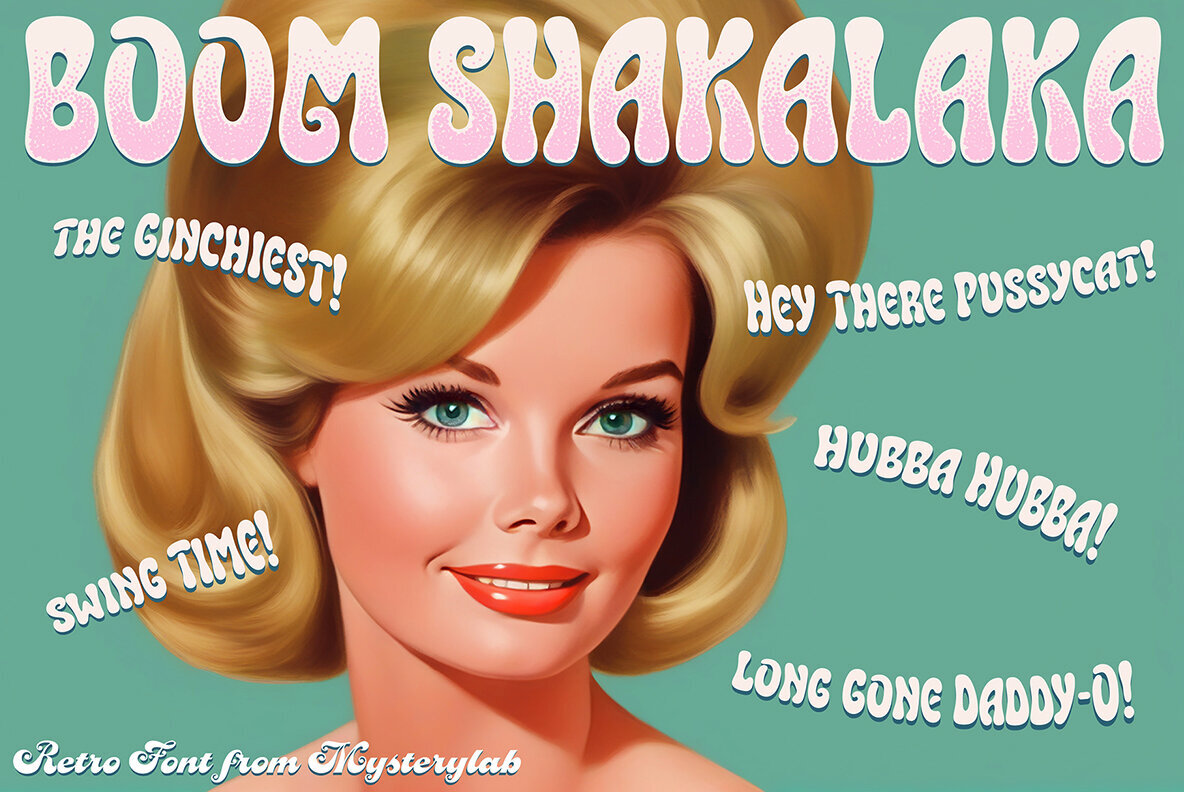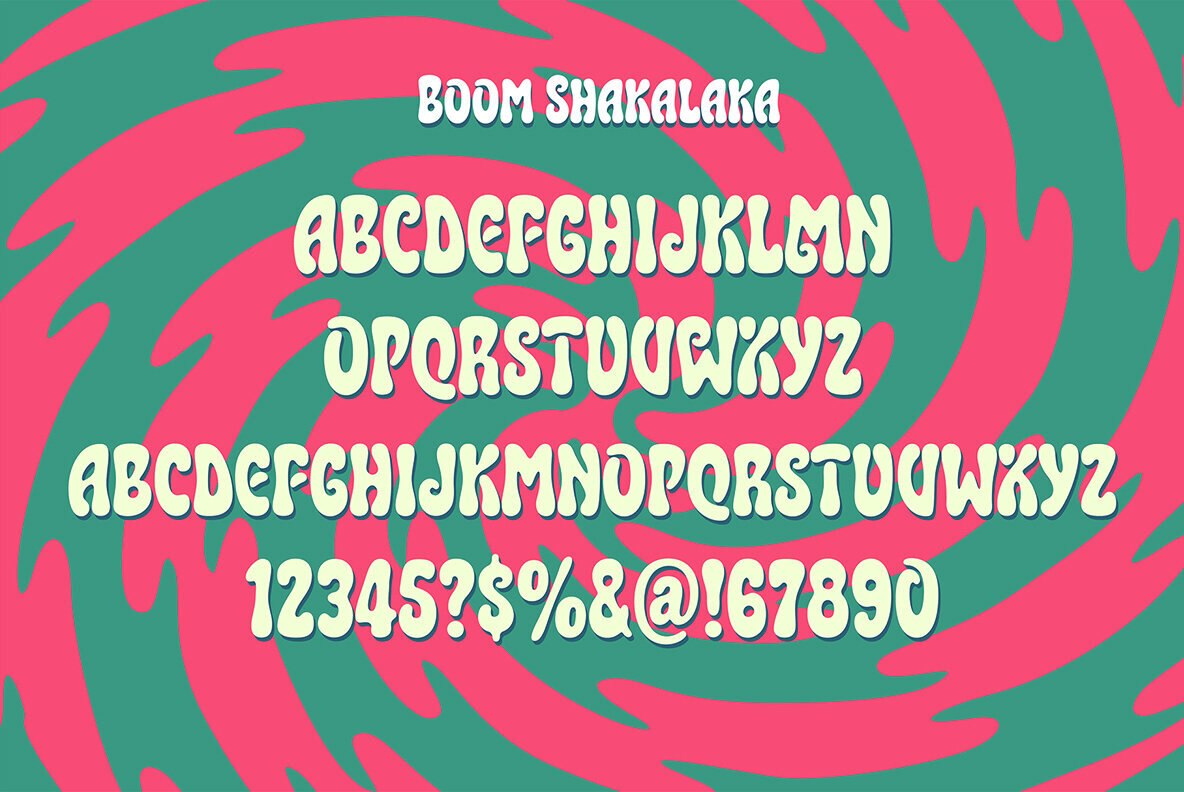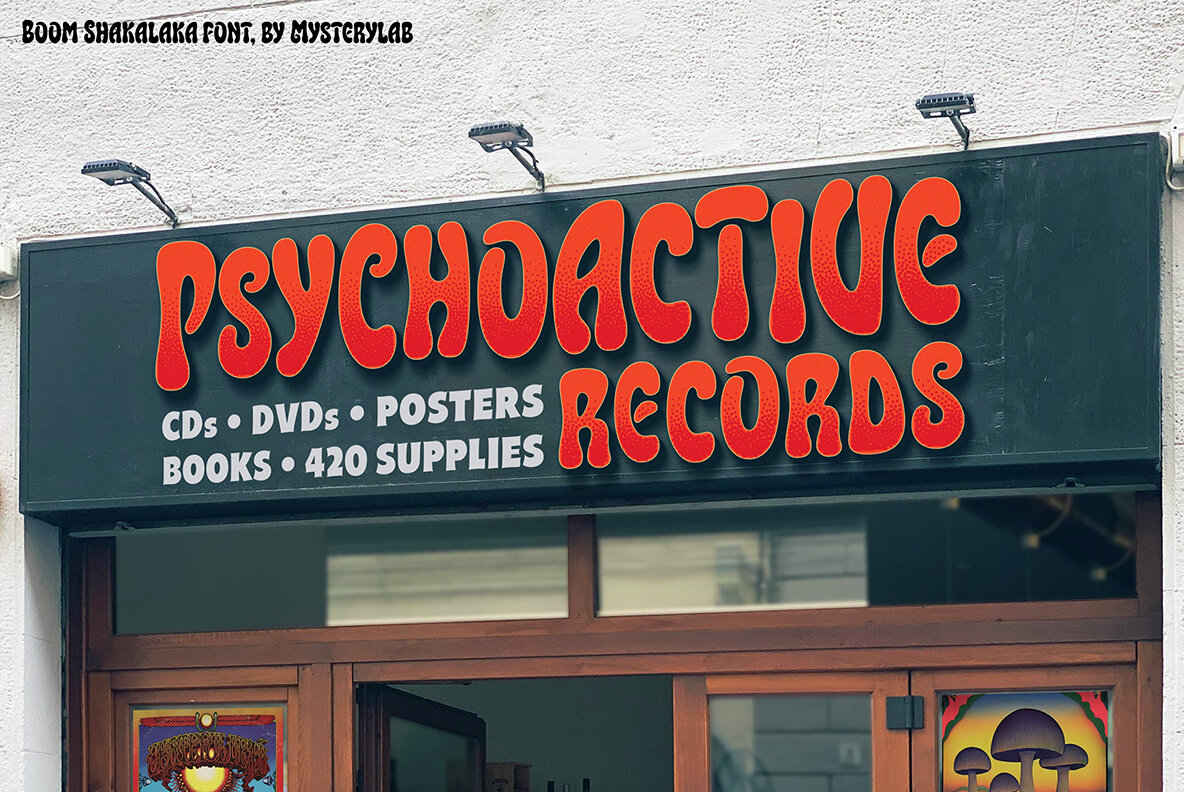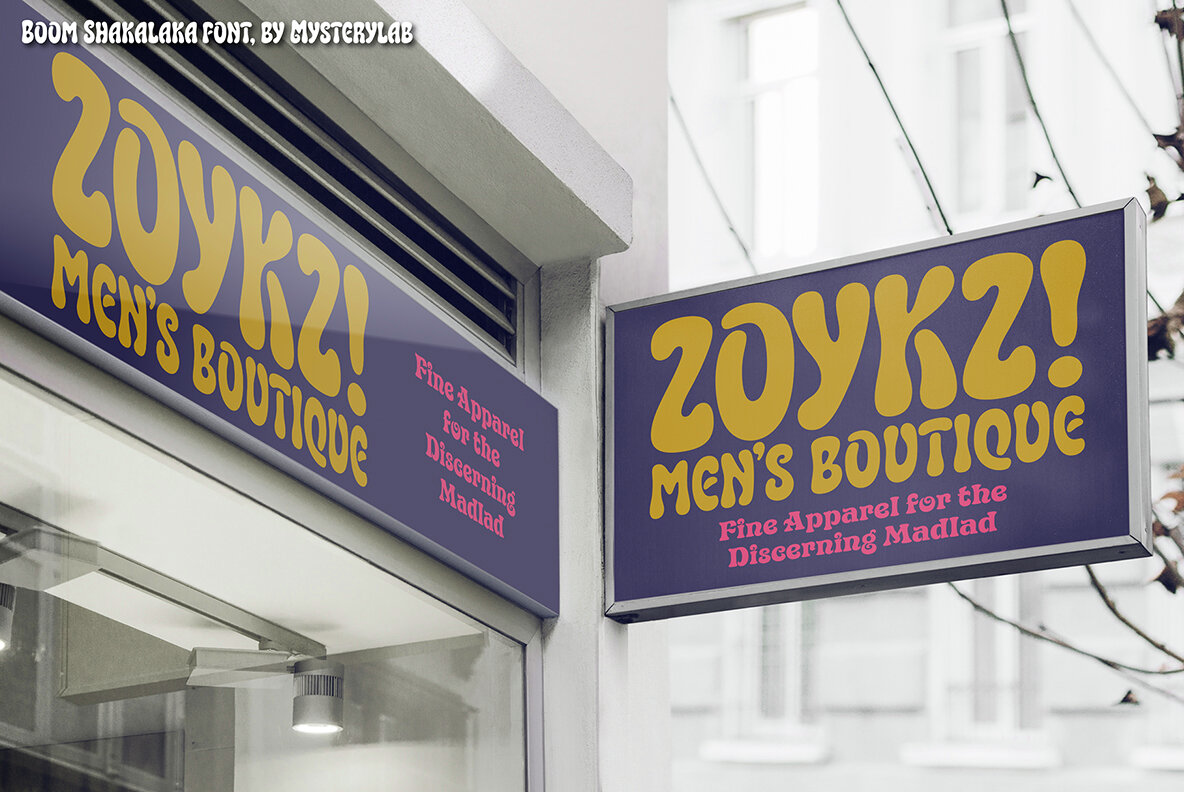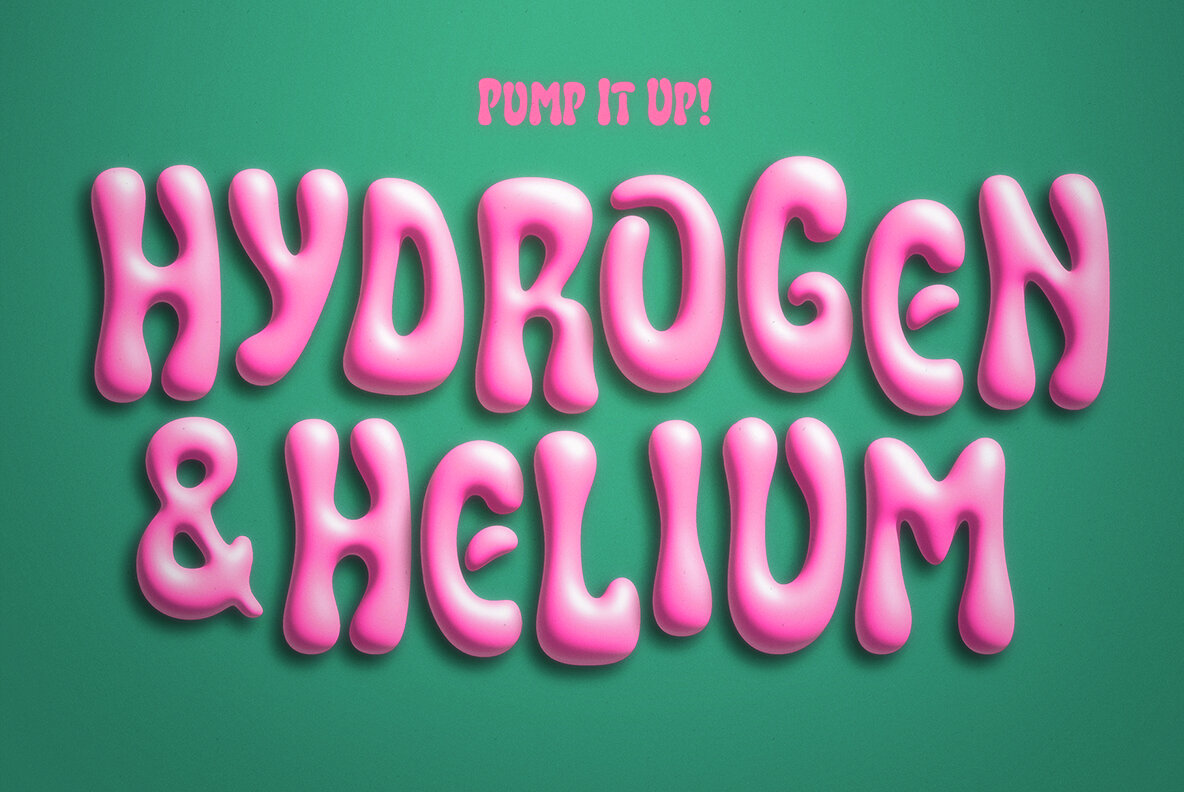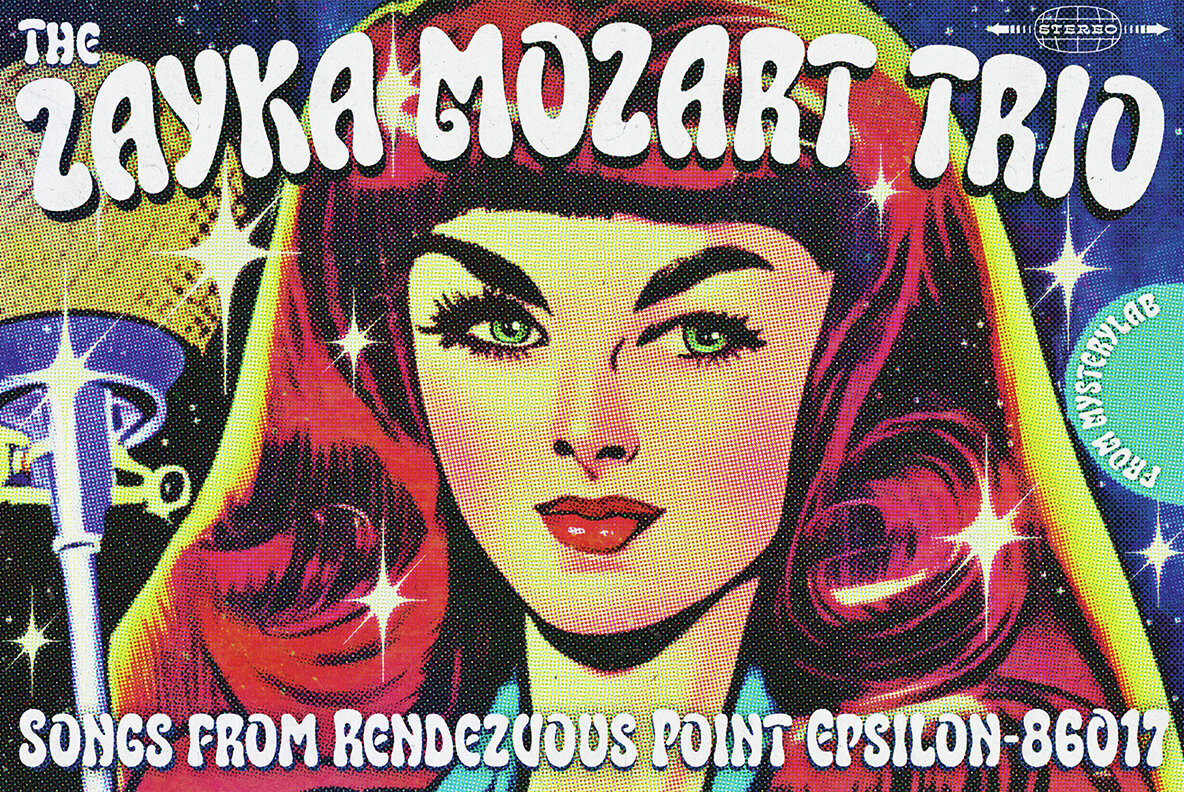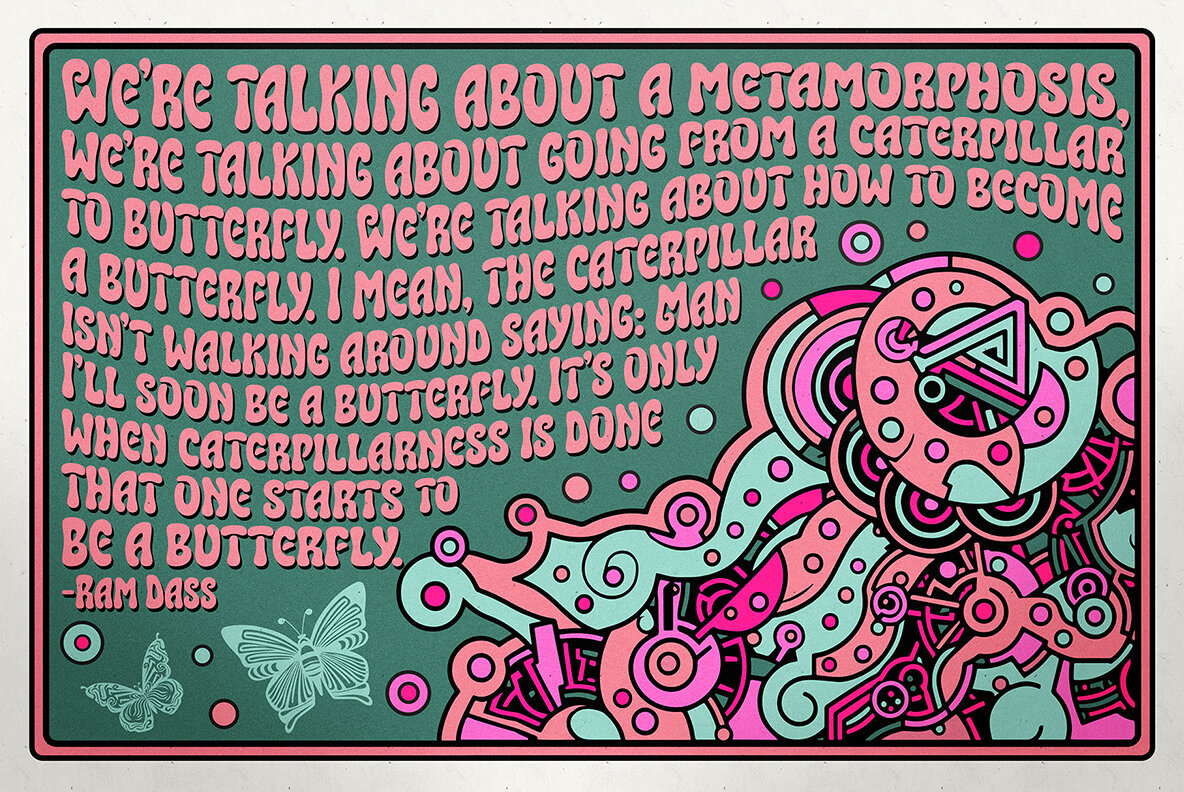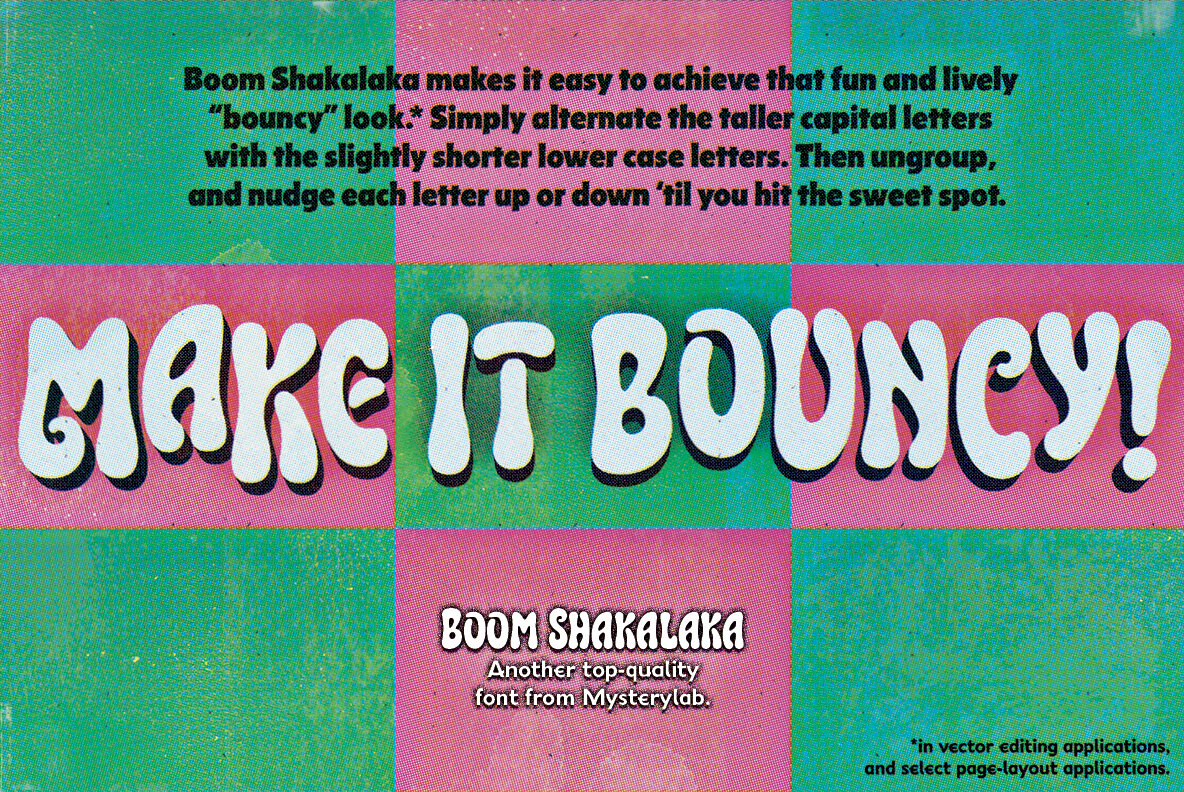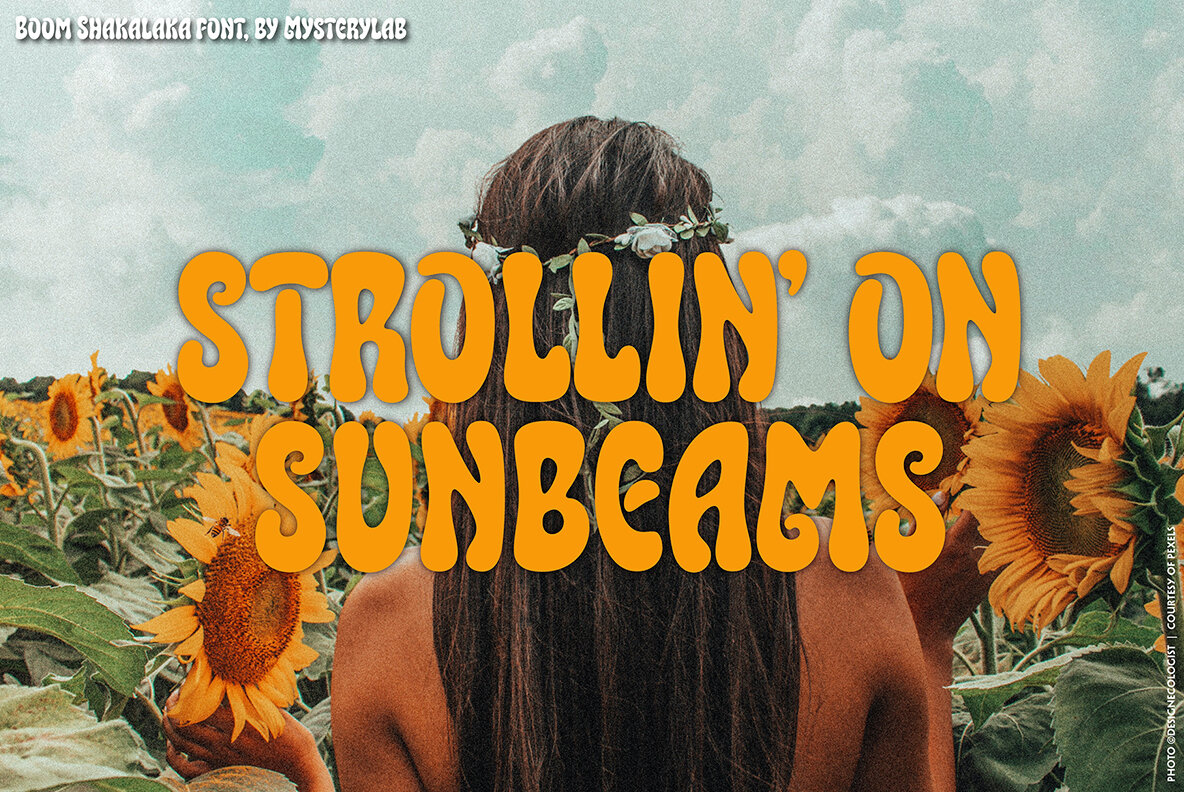
Boom Shakalaka: A Retro Vibe Typeface
Boom Shakalaka encapsulates the stroboscopic energy of 100 vibrant Carnaby Street shops from the swinging 1960s, fused with the dynamic spirit of beach dances, and the groove of 1970s soul parties. This font embodies the essence of those eras, characterized by its puffy, rounded goodness, delivering a chunky retro vibe that distinctly tells time.
• Vibrant Nostalgia – Captures the essence of iconic visual aesthetics from the 60s and 70s.
• Dynamic Energy – Perfect for vintage-themed projects or bold statement designs.